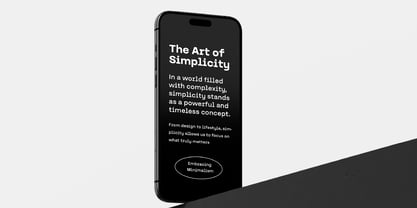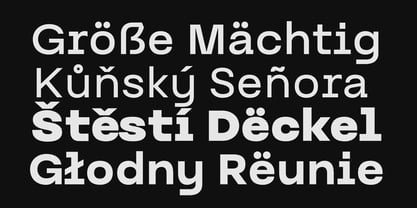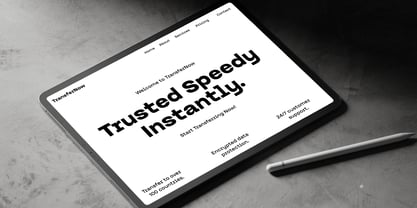
Nadea
por Yukita Creative
La familia tipográfica Nadea fue diseñada por Yukita Creative y publicada por Yukita Creative. Nadea contiene 6 estilos y opciones de paquete familiar.
Introducing Nadea Sans Serif — a modern and minimalist typeface designed to bring elegance and simplicity to your creative work. Featuring clean lines, balanced proportions, and a versatile range of weights, Nadea is ideal for branding, logos, editorial design, posters, and web design.
Each character is carefully crafted with attention to detail, offering a contemporary aesthetic that works beautifully in both bold headlines and subtle body text. Whether you're designing modern identities, creating clean typographic layouts, or developing sleek UI/UX projects, Nadea Sans provides flexibility, clarity, and professional-grade quality.
Make a lasting impression with Nadea Sans — where minimalism meets precision.